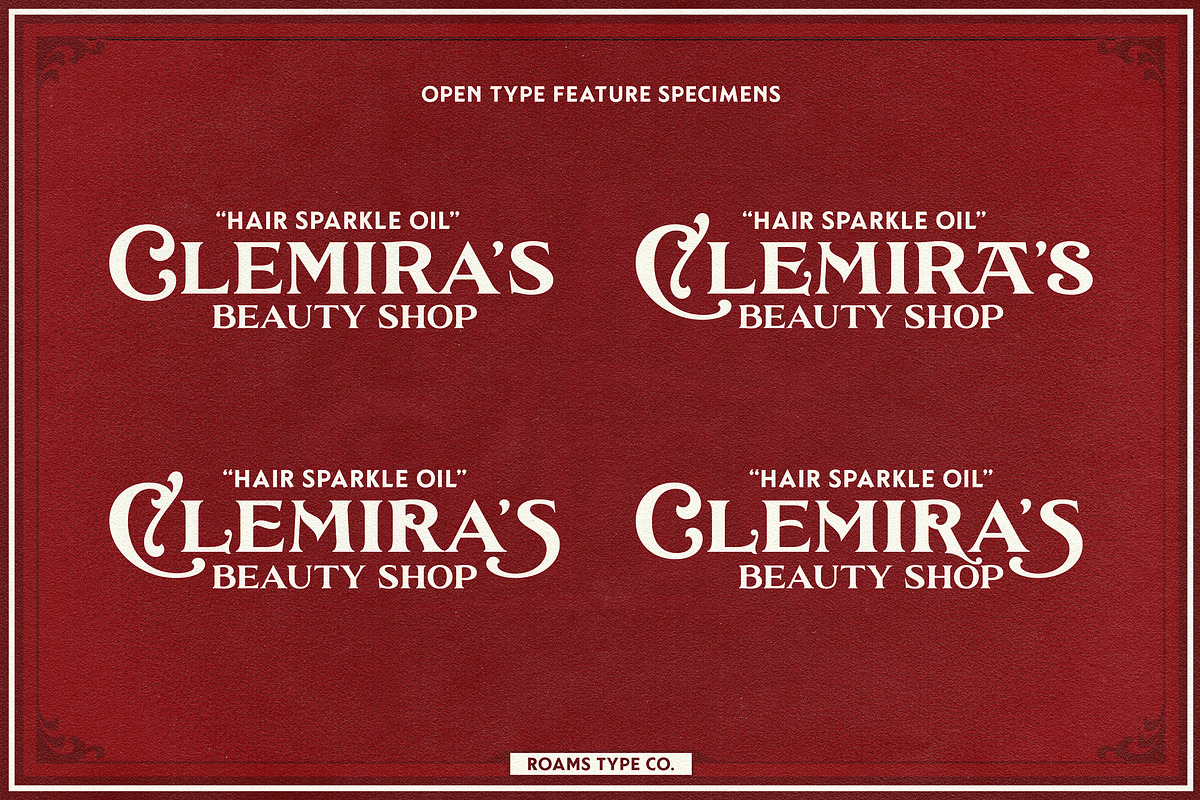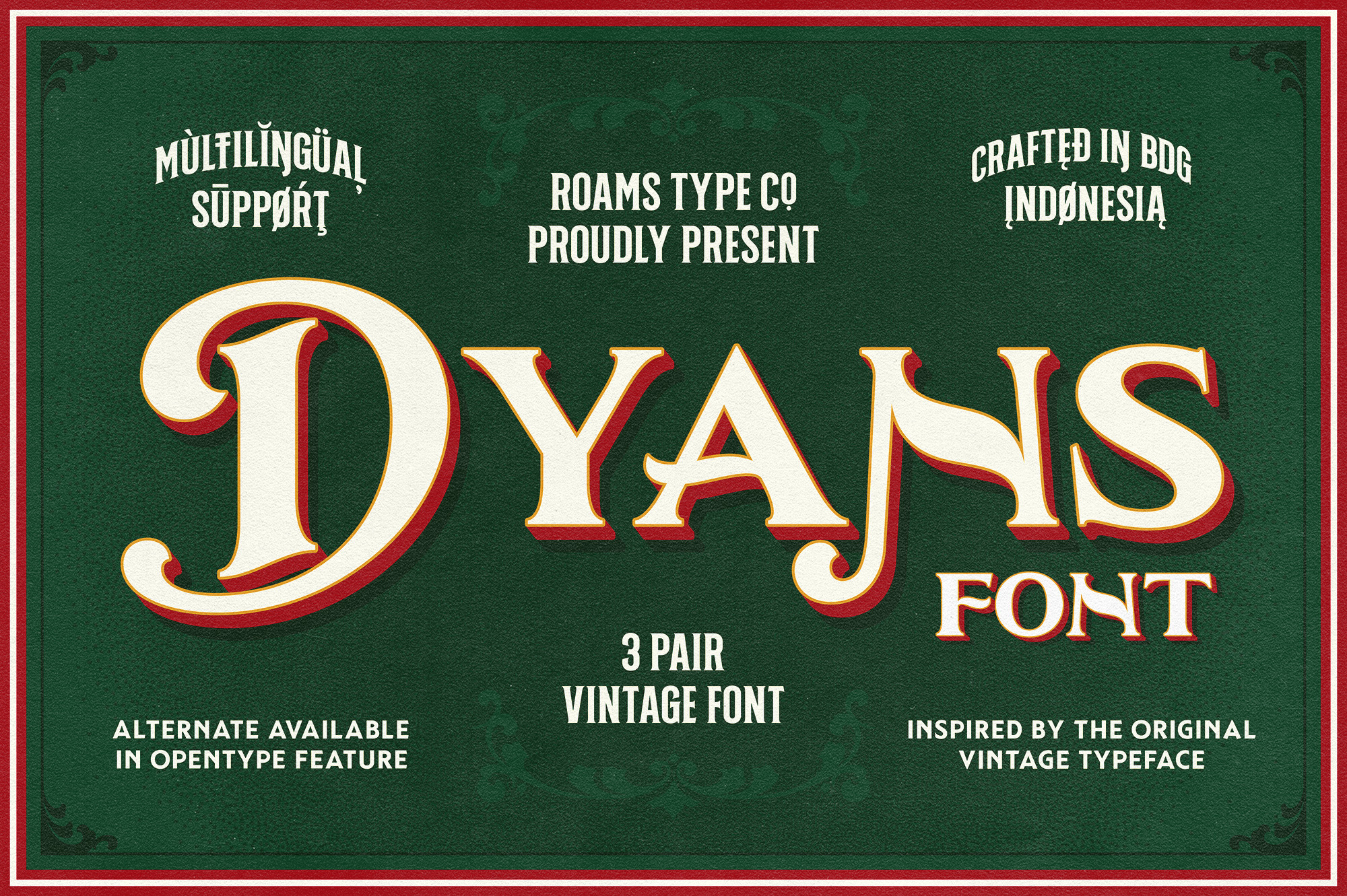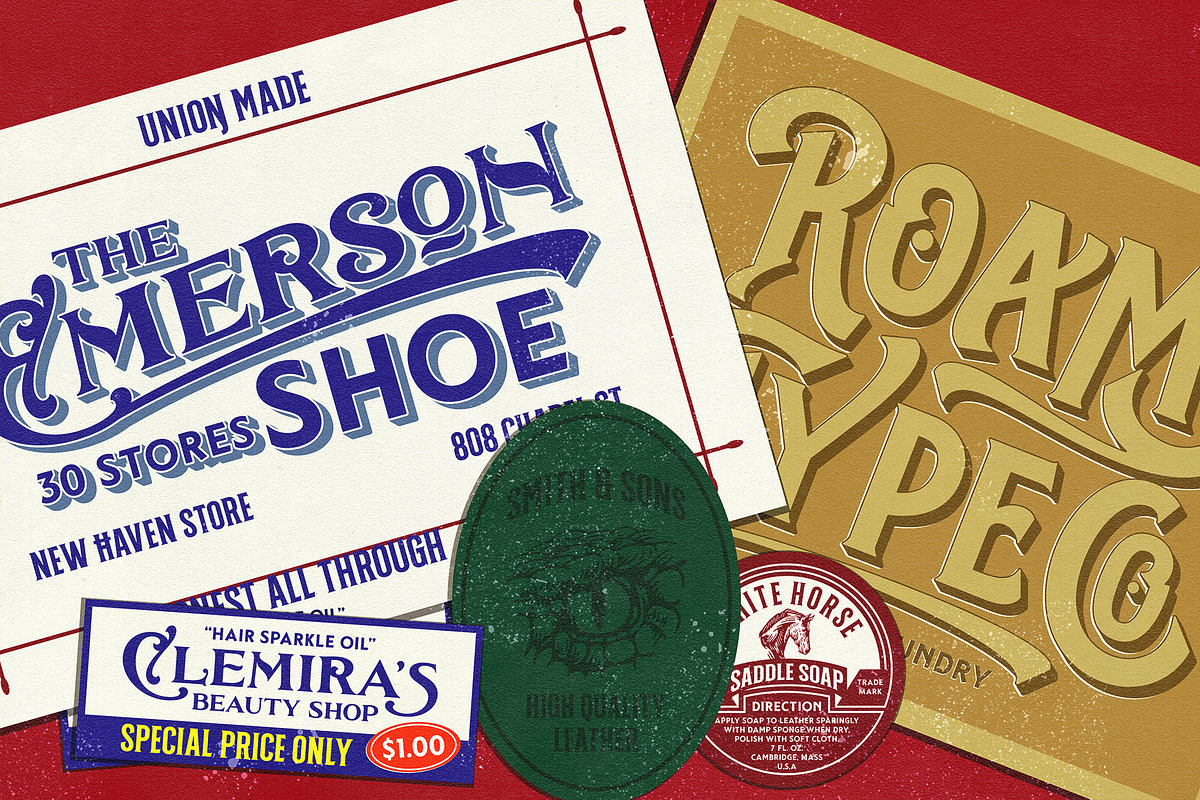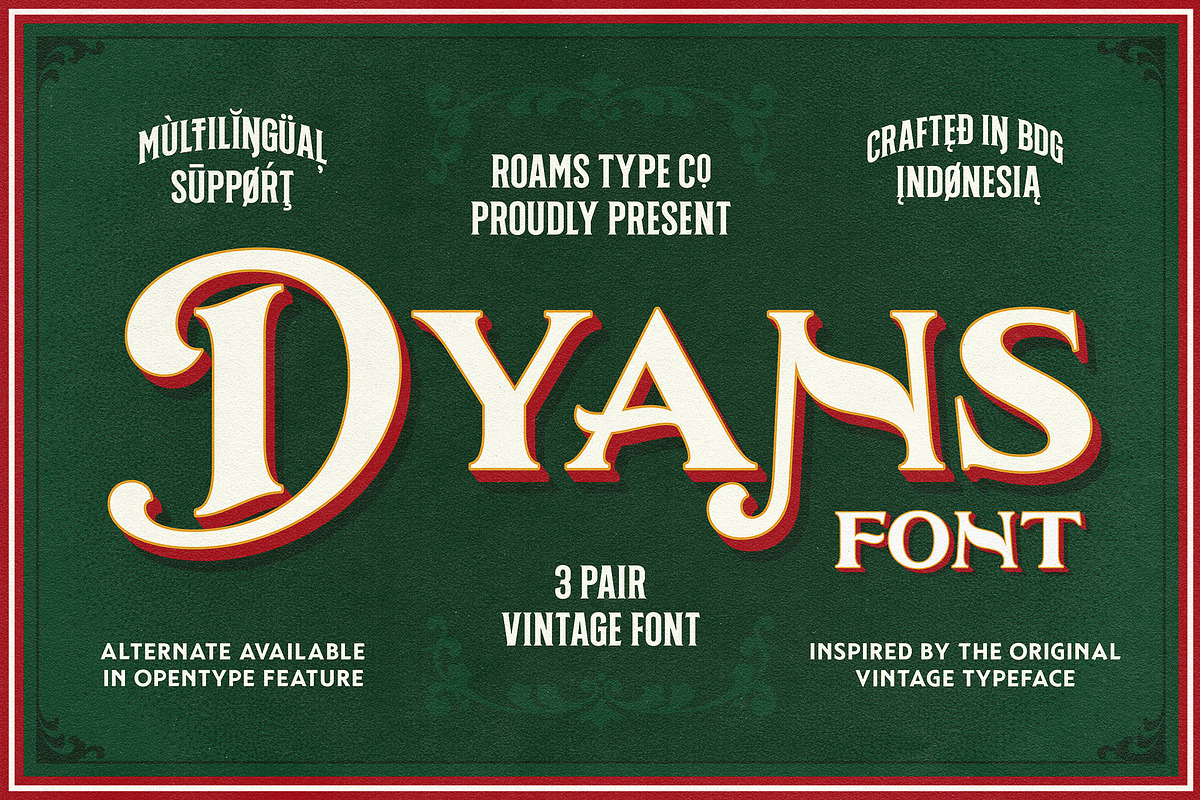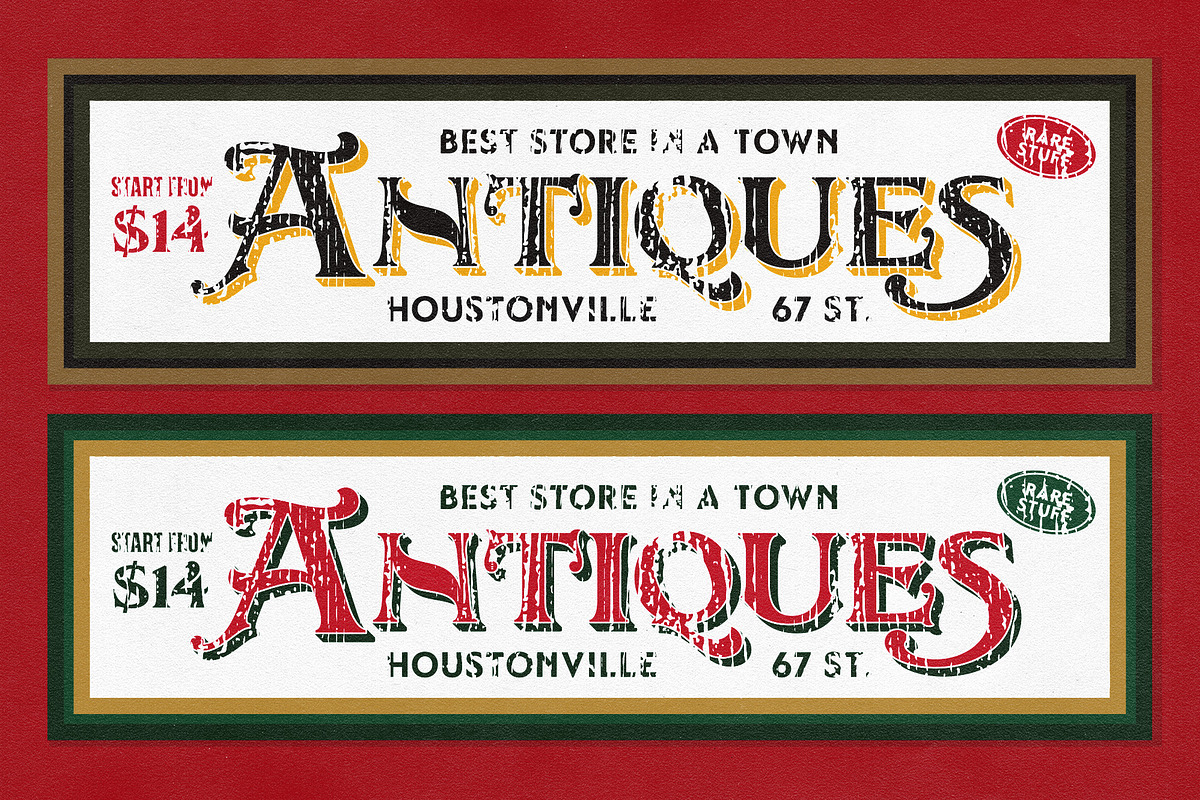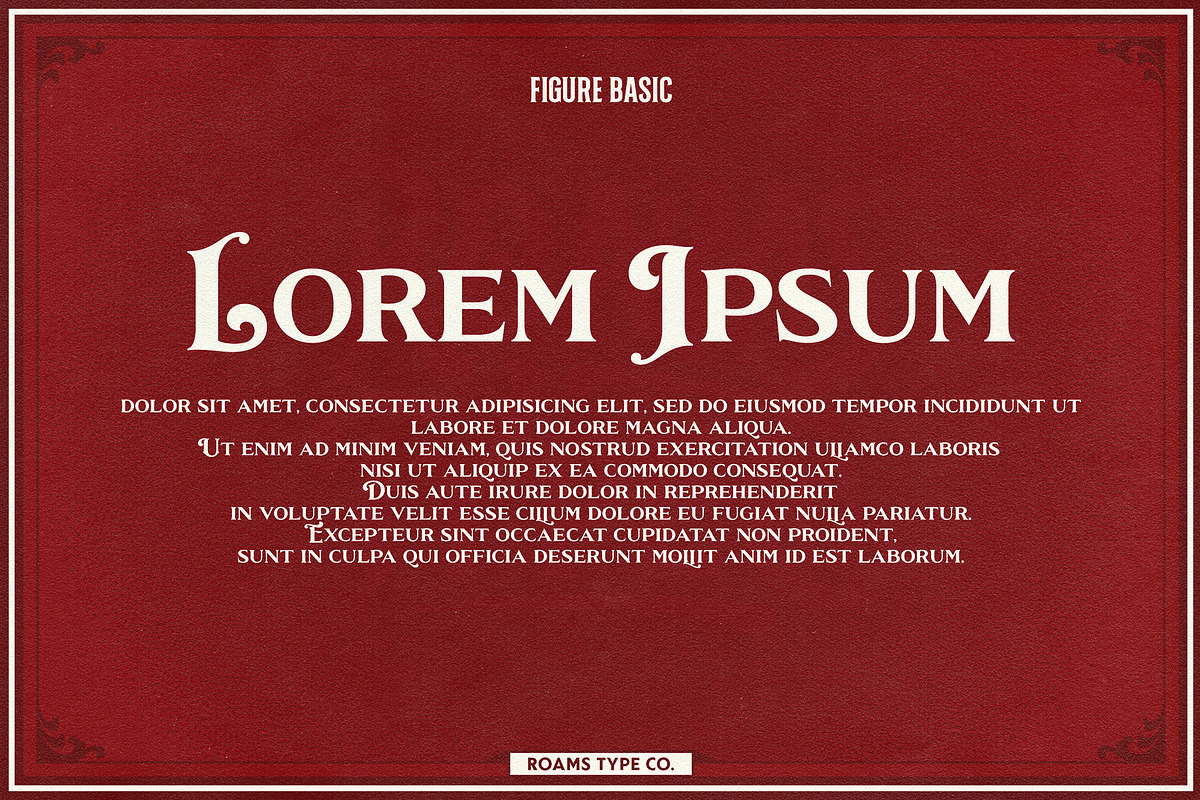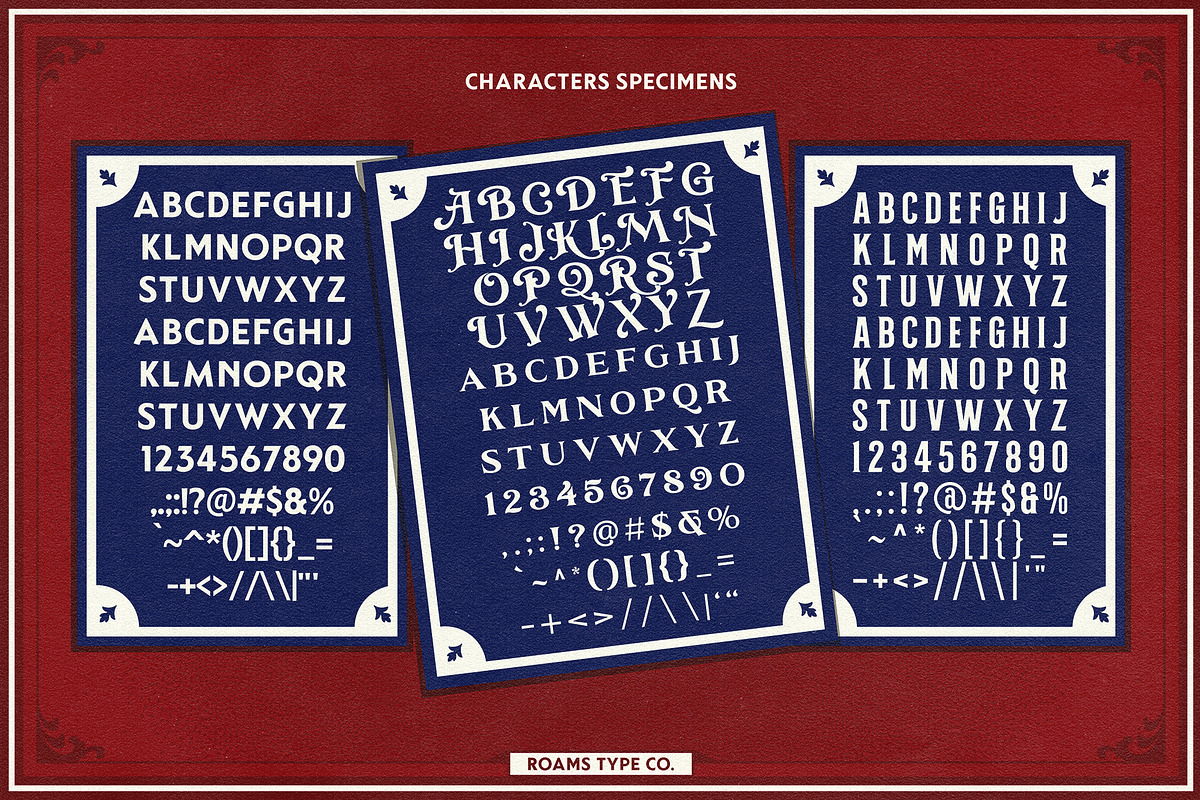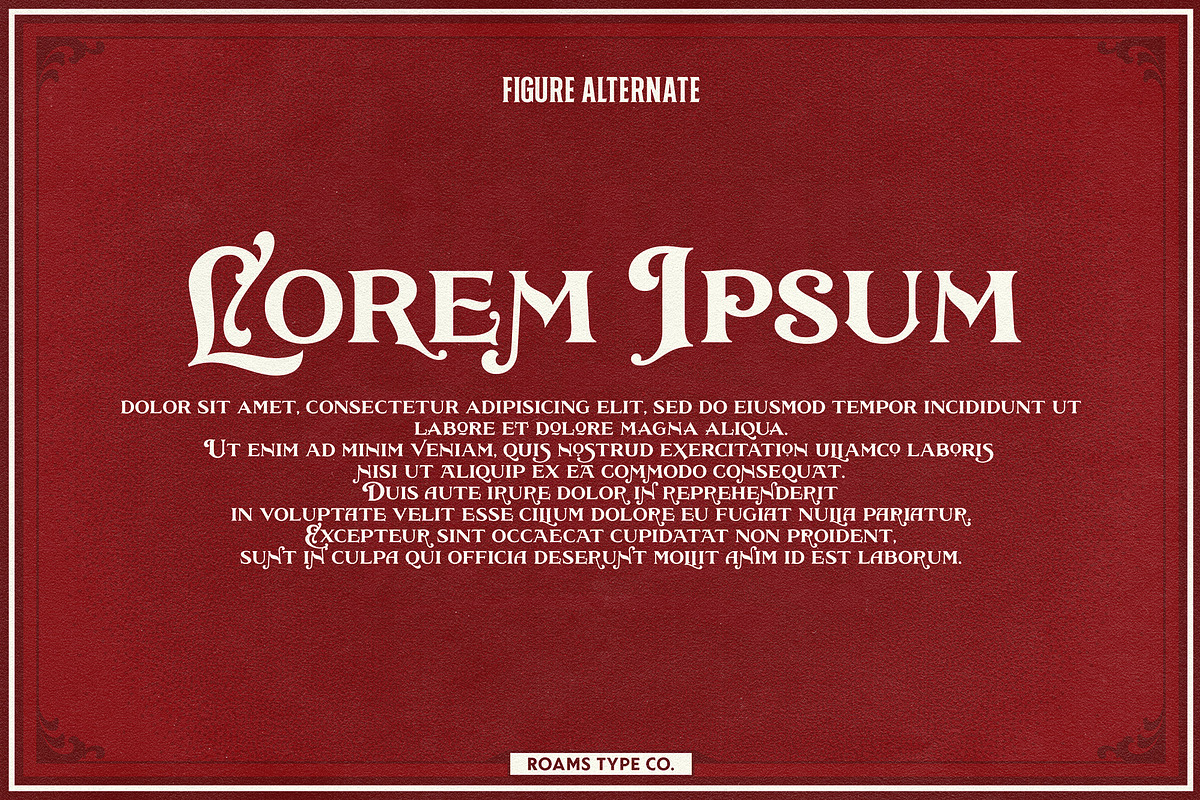
Dyans Font Family
Dyans Font Family is a type of font that is inspired by vintage handwriting art that is often used in signwood, signpainting and others, usually this font is very suitable for manual hand lettering or hand painting art. This font uses the open type feature so you can explore alternative types in certain letters. Enjoyed.
This font conssist of:
- Stylistic Set
- Alternate Character
- Math Symbol